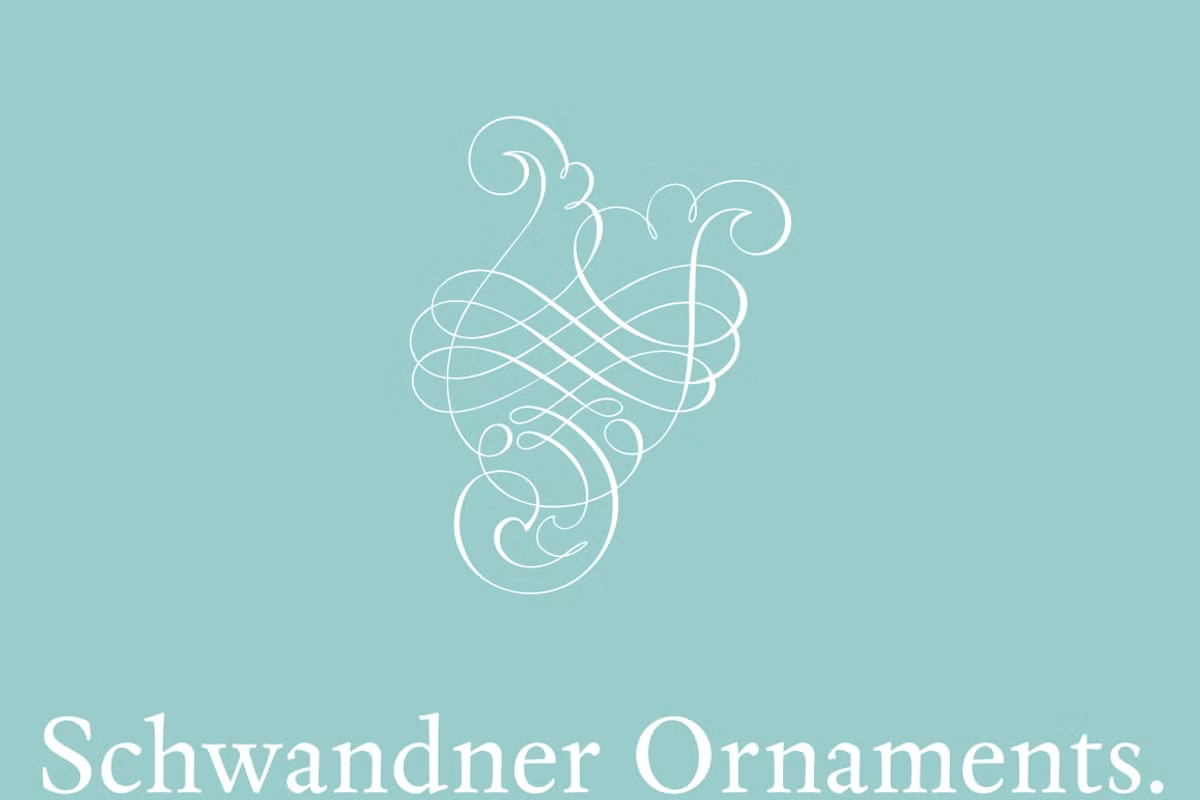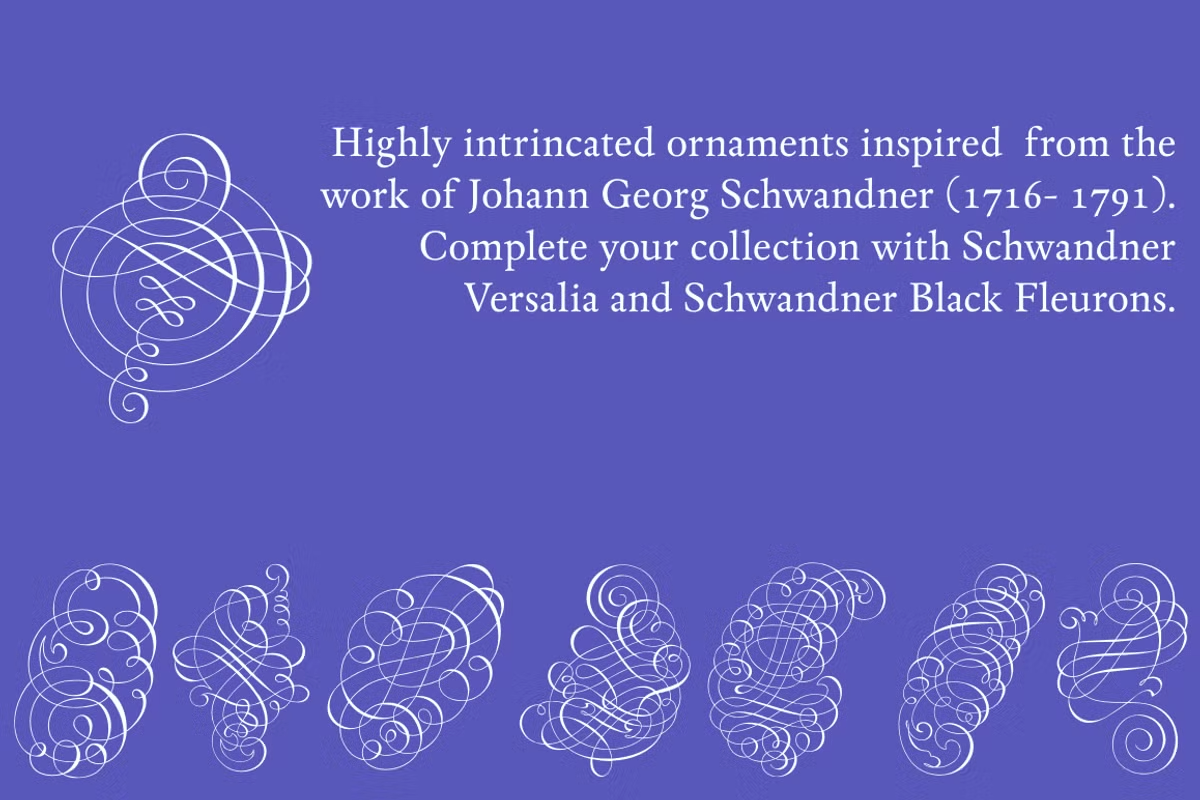
Schwandner Ornaments
Font Family by Intellecta Design
A highly intricate set of ornaments inspired from the work of Johann Georg Schwandner (1716-1791). An accurate historical revival and interpretation of Iza W, at Intellecta Design. State-of-art to use in headings, chapter initials from books, magazines and other publications. In Barocque and Renaissance inspired layouts, or modern mixed proposals.
If you’re taking a formal approach to your Christmas designs, Schwandner Ornaments from Intellecta Design will provide unparalleled elegance and sophistication. The ornaments and fleurons in this set are intricately drawn, adding a touch of the Victorian era to cards, envelopes, gift tags, and place cards worthy of the grandest holiday feast!